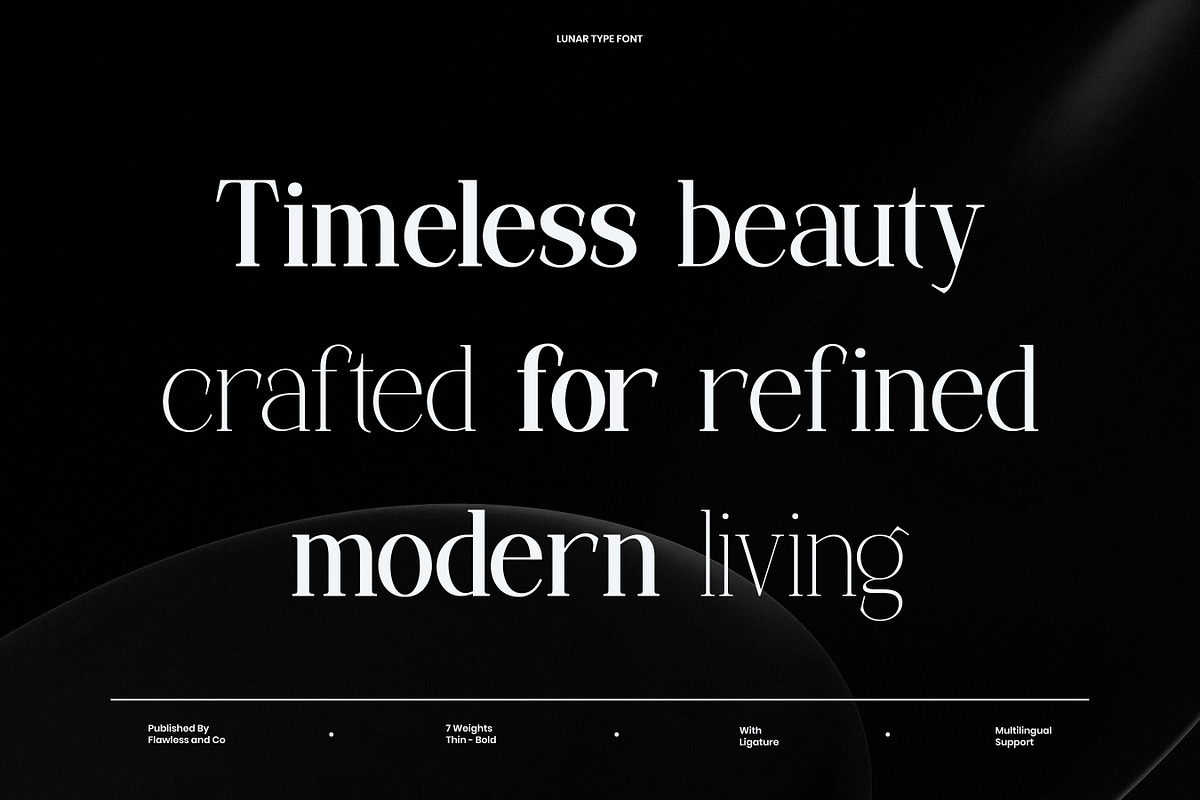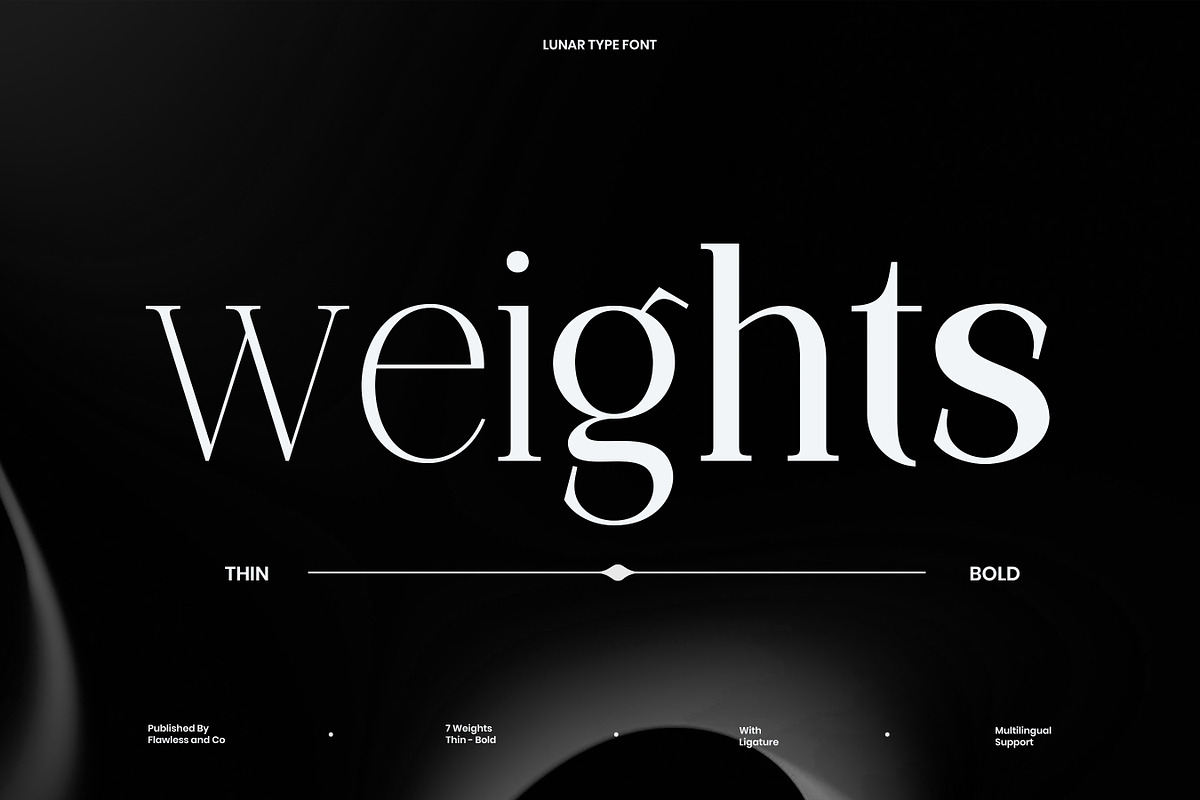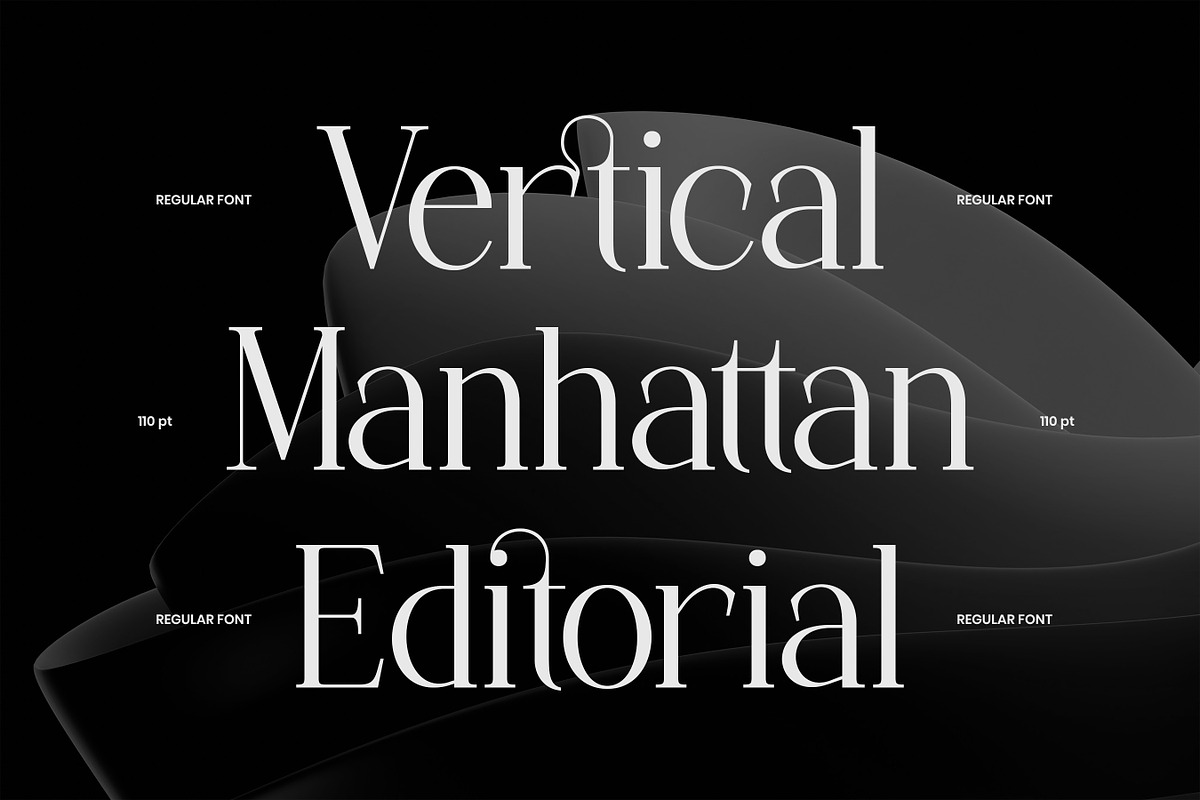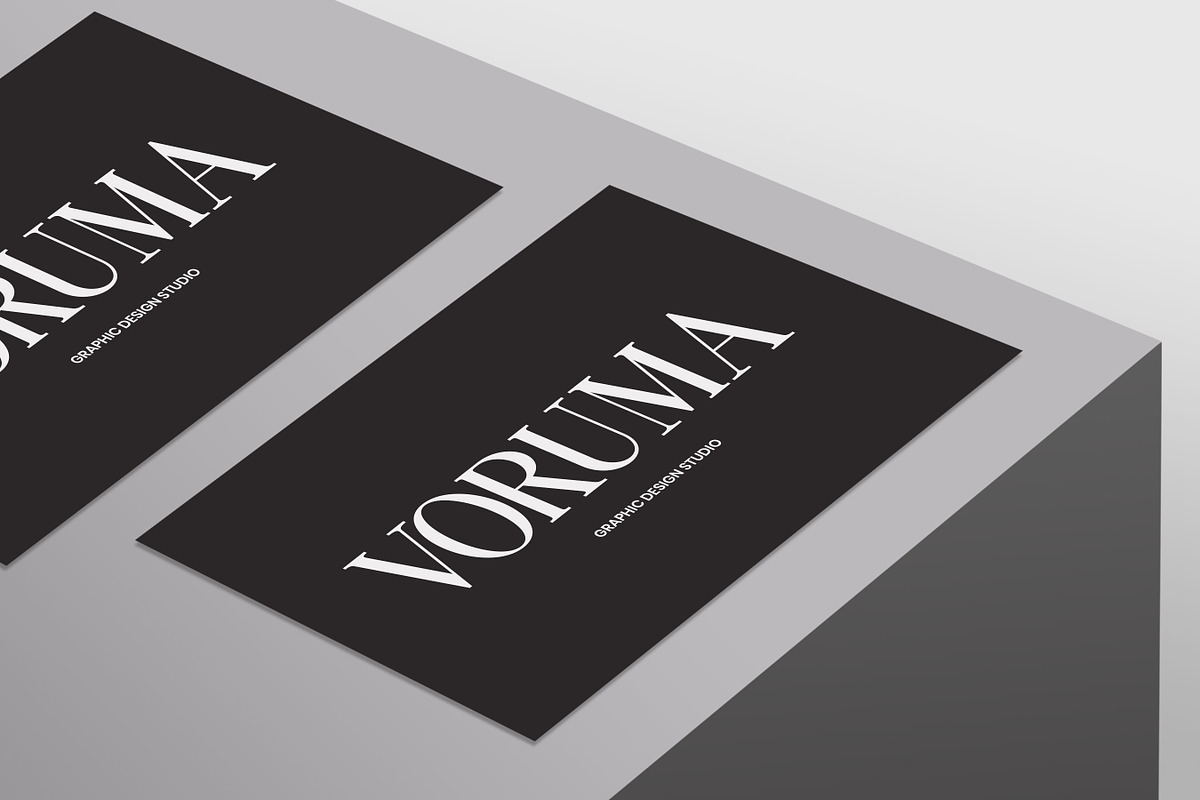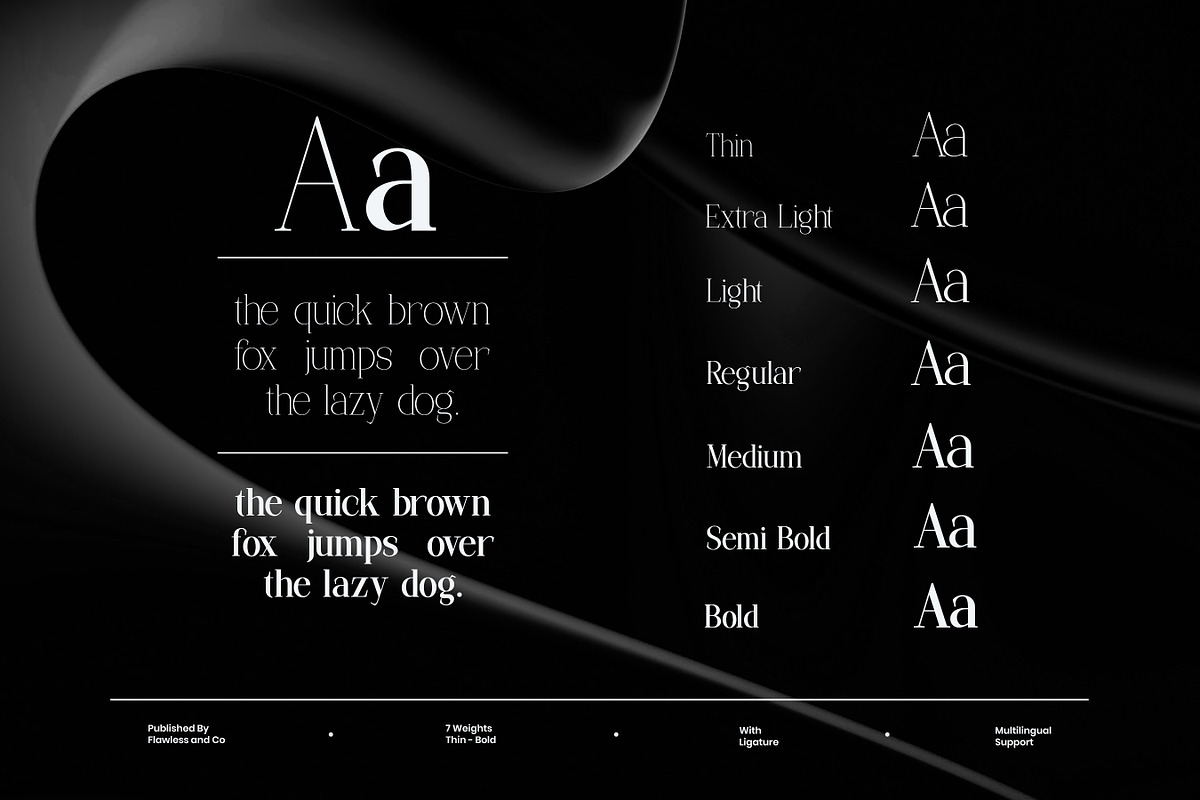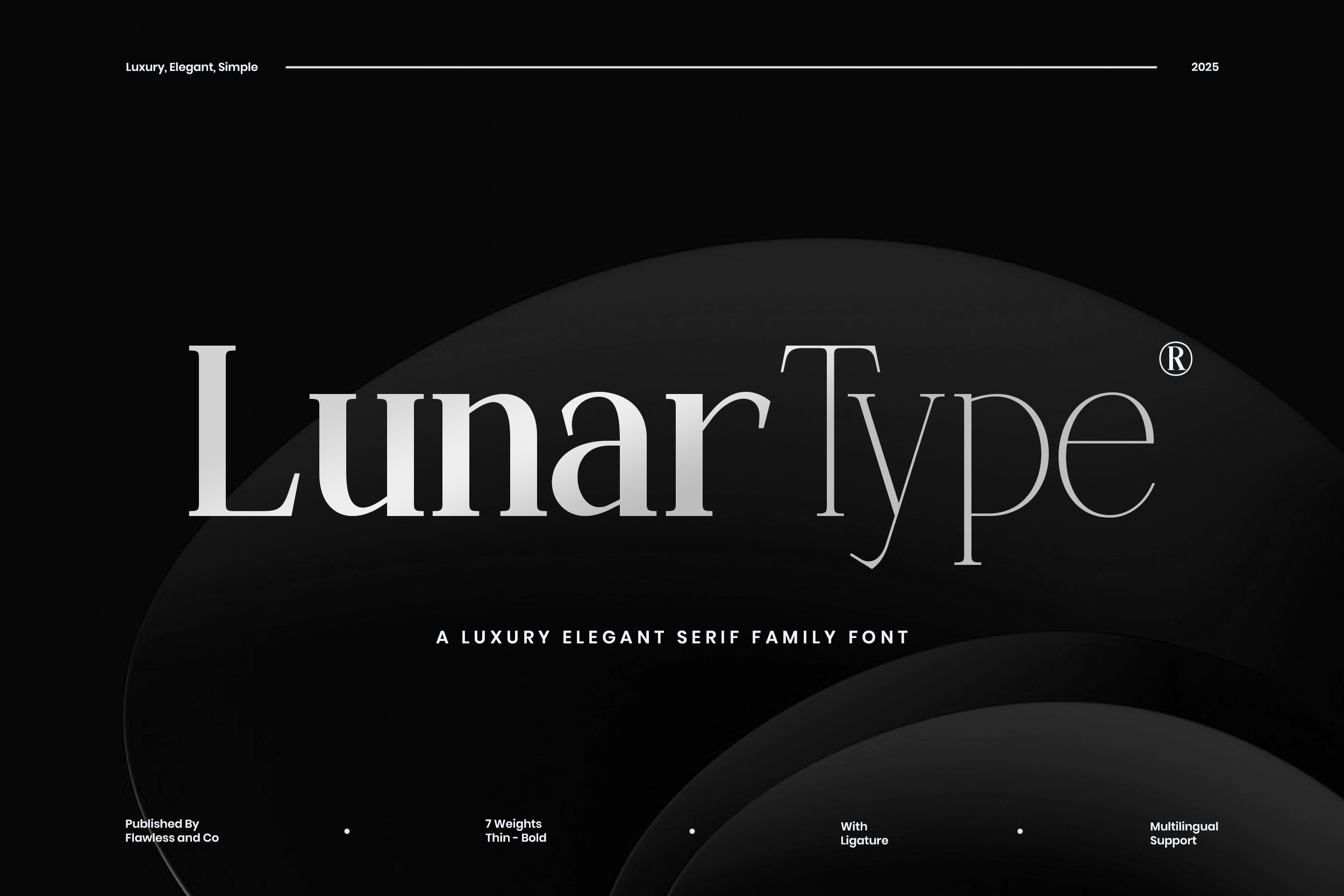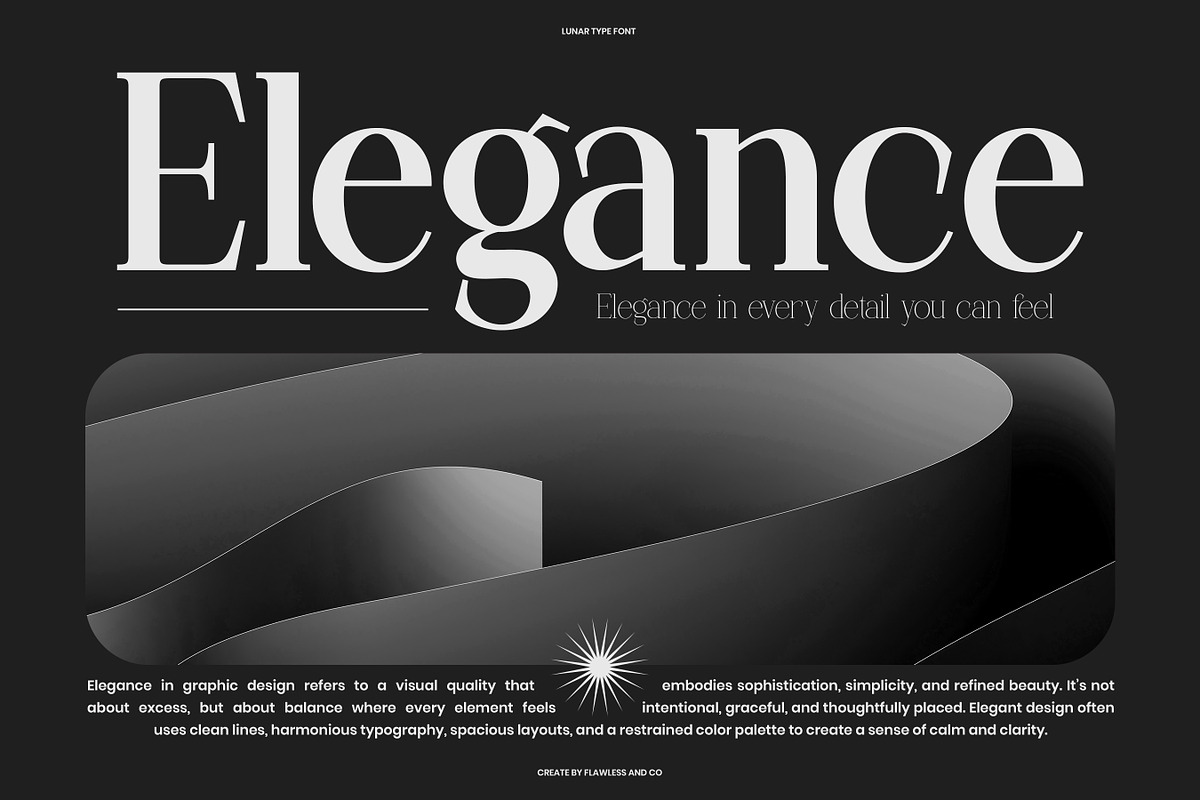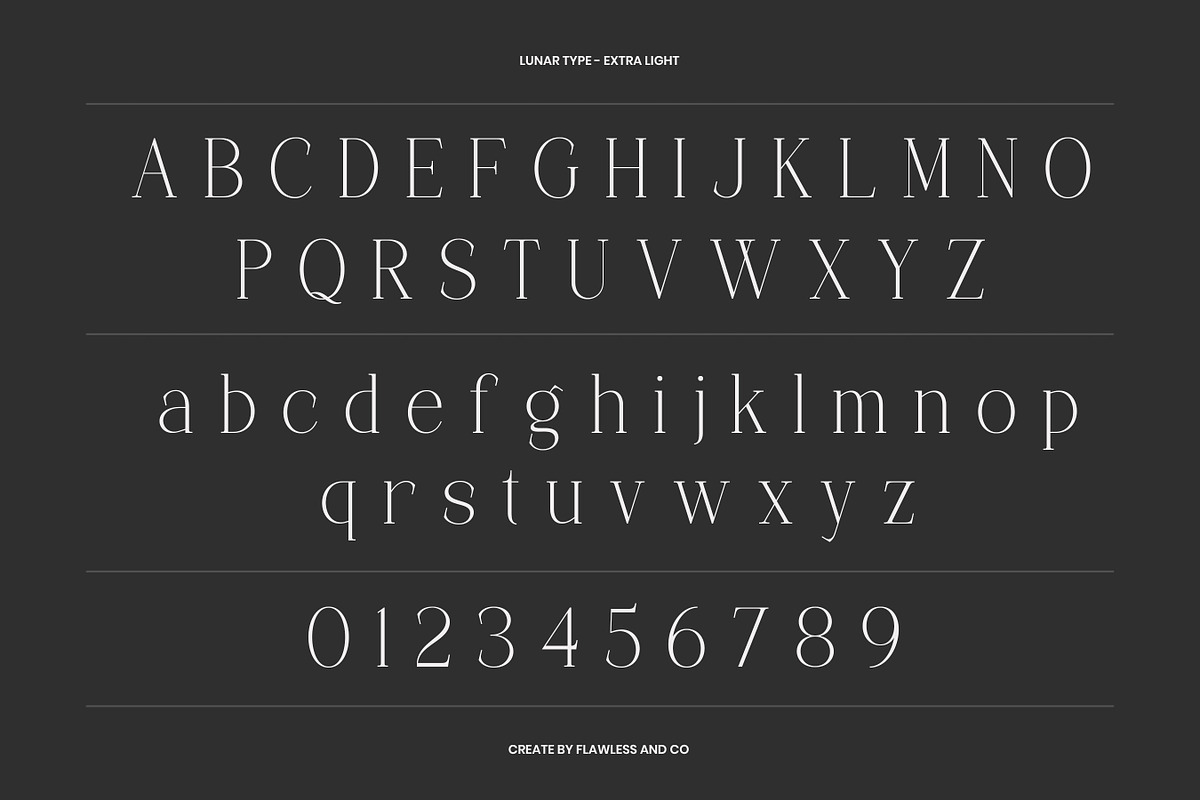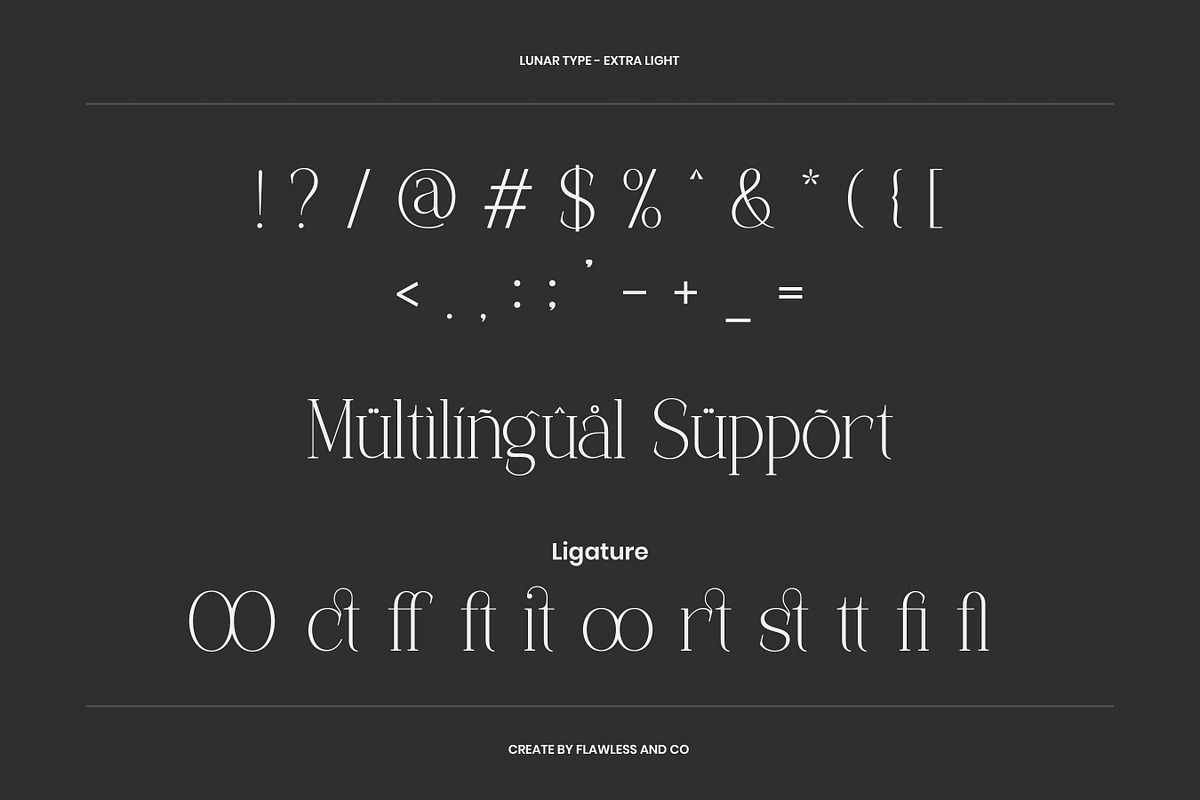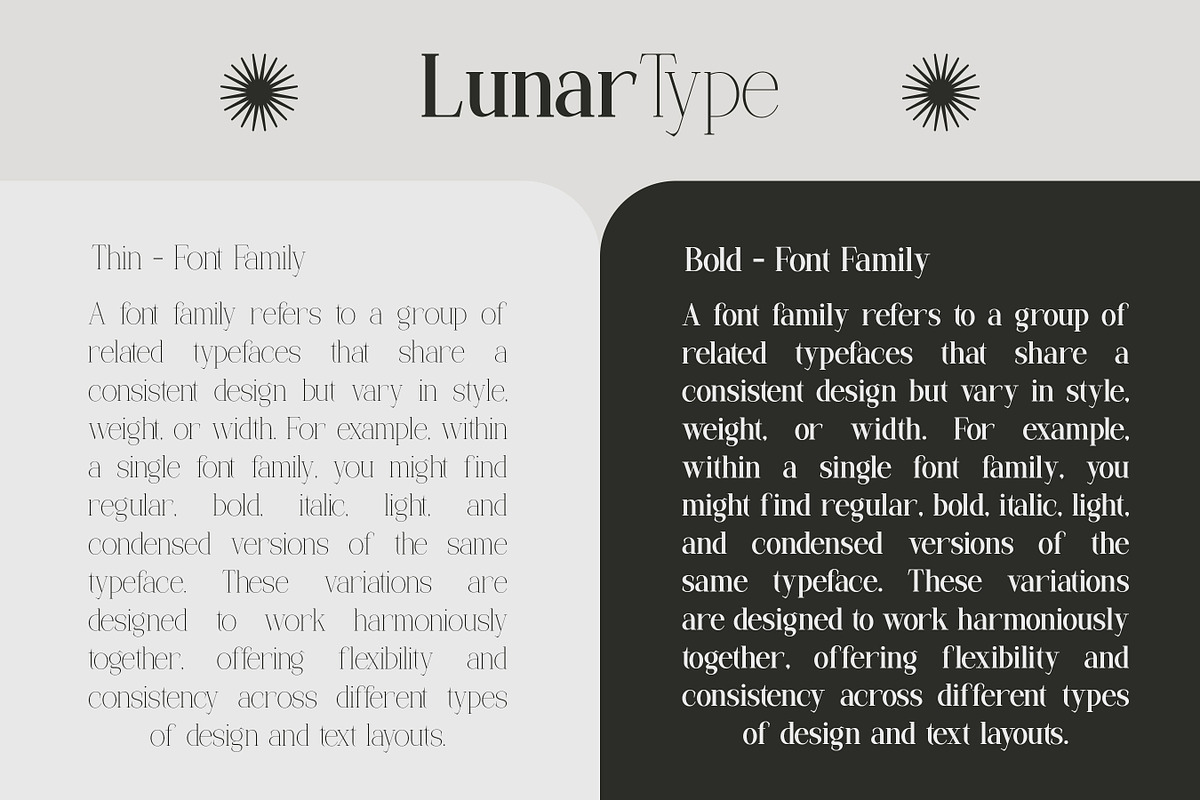
Lunar Type - Family Serif Font
Lunar Type — A Luxury Elegant Serif Family Font
Lunar Type is a refined serif family font that embodies the essence of sophistication, minimalism, and modern class. Designed with precision and grace, Lunar Type features a harmonious balance of thin and bold weights, making it perfect for brands, editorials, and high-end visual identities. Each letterform is crafted to reflect timeless beauty and quiet confidence — offering a smooth reading experience while elevating your design with understated luxury. From fashion lookbooks to elegant branding and minimalist design systems, Lunar Type delivers a premium typographic experience. Whether you’re building a luxury label, designing packaging, or crafting magazine layouts, Lunar Type gives your work a sense of calm authority and visual elegance.
Who Should Use Lunar Type?
Lunar Type is made for designers, creatives, and brands who value sophistication, clarity, and timeless elegance in their visual work.
This font is perfect for:
- Luxury fashion and beauty branding
- High-end product packaging and label design
- Editorial layouts, magazines, and book covers
- Premium logo and identity design
- Architecture and interior design studios
- Minimalist websites and digital platforms
- Wedding and lifestyle stationery
- Art galleries, museums, and upscale events If your project calls for elegance in every detail — Lunar Type is your go-to choice.
A Must-Have Font for Brand and Logo Creators and Designers
Lunar Type is a must-have for brand and logo creators who seek to express timeless elegance and visual harmony in their work. With its luxurious serif details, multiple weights from thin to bold, and thoughtfully designed ligatures, this font family offers endless possibilities for crafting distinctive identities and refined visuals. Whether you're designing high-end branding, editorial layouts, or minimalist packaging, Lunar Type adds a layer of sophistication that speaks volumes without saying too much.
Why Choose Lunar Type for Brand and Logo Projects?
Lunar Type is the ideal choice for brand and logo projects that demand timeless elegance, modern clarity, and refined typography. Its sleek serif structure, paired with seven versatile weights and graceful ligatures, gives designers the flexibility to craft unique visual identities that stand out. From luxury branding to minimalist logos, Lunar Type delivers a sophisticated, high-end look that captures attention and builds trust—making it a powerful tool in any branding toolkit.
Suitable For:
- Luxury brand identities and high-end logo design
- Editorial layouts and magazine titles
- Fashion and beauty packaging design
- Professional business cards and stationery
- Website headers and minimalist digital interfaces
- Wedding invitations and premium print materials
- Social media branding with an elegant tone